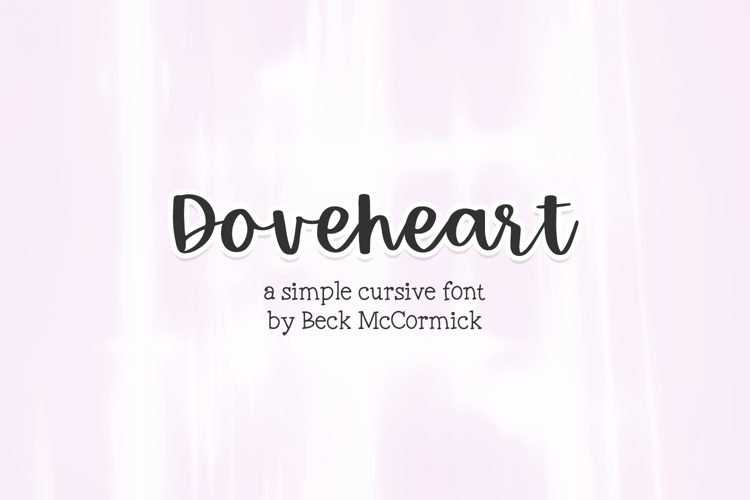
Doveheart Script
Doveheart Script is an adorable hand lettered font. It’s the perfect fit for your digital planner or note-taking app, and is super legible. Doveheart will be a great fit for your cute home decor projects, or logo & branding projects, as well as social media or marketing graphics. Doveheart’s thickness and very smooth edge makes it a fantastic font to use with your Cricut or Silhouette machine and fun crafting projects!
Doveheart includes:
- 1 ligature - tt
- 10 alternates - r, b, d, g, h, j, k, l, t, y